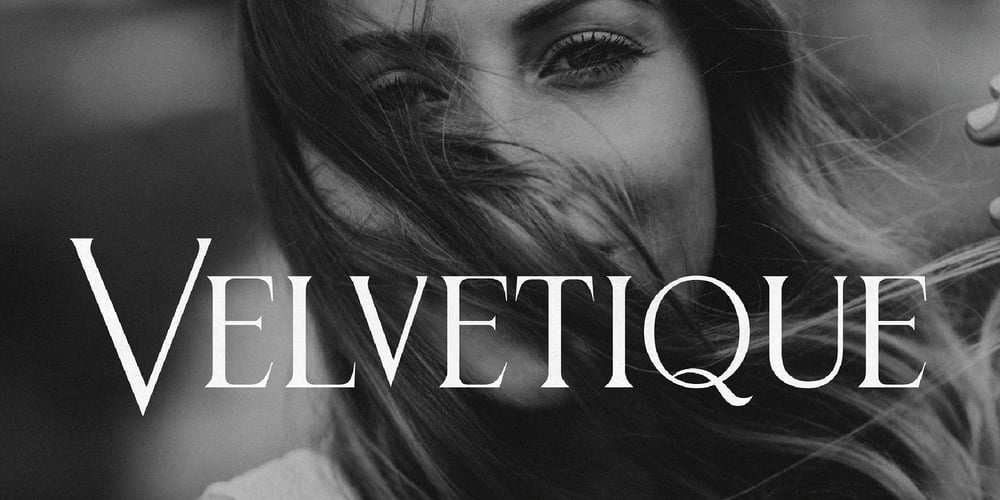
Velvetique
Velvetique font
Velvetique Font Family was designed by Igor Ovsyannykov and published by Hipfonts. Velvetique contains 1 styles and family package options. Velvetique emerges as the epitome of luxury in the world of typography, a typeface that speaks volumes of elegance and sophistication. With its exquisite design, Velvetique is tailored specifically for those who seek to infuse a touch of opulence into their creative projects.Perfect for the high-fashion realm, glossy magazine spreads, and the enchanting ambiance of weddings, this font not only complements but elevates the aesthetic of any design it graces. Its delicate yet bold presence makes it an ideal choice for branding, where it can lend an air of exclusivity and class, crucial for high-end products and services.The allure of Velvetique lies in its ability to blend seamlessly into various design contexts, effortlessly bringing a high-class feeling to the table. Its well-crafted curves and fine detailing exude a sense of premium quality, making it a go-to option for designers aiming to create a luxurious and memorable visual experience.Whether it’s used in large, attention-grabbing headlines or as elegant, understated body text, Velvetique maintains its regal charm, ensuring that every word stands out with grace and style. This typeface is a quintessential choice for projects that require a touch of glamour and sophistication, perfectly encapsulating the essence of luxury in every stroke.